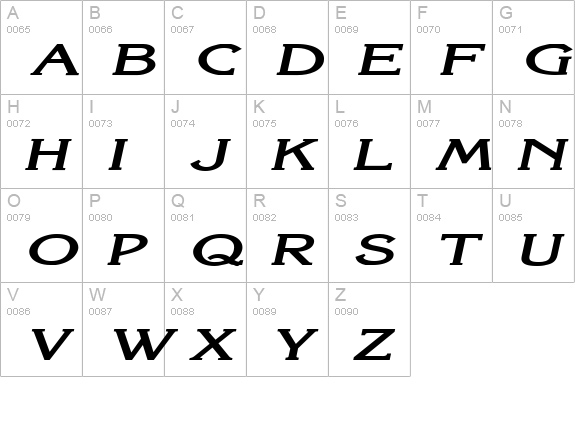
Keira Extended Bold Italic Font Details
Keira Extended Bold Italic is a strong, high-contrast, extended-width, italic variant in the Keira typeface family \xE2\x80\x94 well suited to headlines, attention-grabbing titles, and strong calls-to-action.
Introducing Keira Extended Bold Italic, a captivating and sophisticated font that effortlessly combines elegance with modernity. This exquisite typeface boasts an extended and bold form, giving your designs a powerful and impactful presence. With its slightly slanted and italicized letterforms, Keira Extended Bold Italic adds a touch of dynamic flair, making it perfect for creating eye-catching headlines, logos, and branding materials. Designed with meticulous attention to detail, Keira Extended Bold Italic exudes confidence and versatility. Its clean and legible characters maintain readability even at smaller sizes, ensuring that your message is conveyed with clarity and professionalism. The bold strokes provide a commanding presence, while the extended proportions add a sense of grandeur and sophistication. One of the most remarkable aspects of Keira Extended Bold Italic is that it is freely available to download at FontsMarket.com. This means that you can effortlessly enhance your creative projects without any cost, making it an ideal choice for both personal and commercial use. Whether you are a graphic designer, a web developer, or simply someone who appreciates the beauty of typography, Keira Extended Bold Italic is a must-have addition to your font library. Embrace the limitless possibilities that Keira Extended Bold Italic offers and elevate your designs to new heights. Its bold and italicized nature will lend an air of elegance and modernity to any project, ensuring that your work stands out from the crowd. Download Keira Extended Bold Italic today and experience the freedom of creativity it brings to your fingertips.